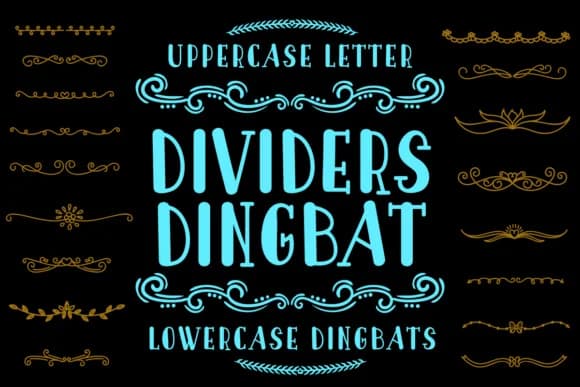
Dividers Dingbat by DogGone Crafting features decorative separators and ornamental marks that create intentional visual breaks across your layouts. Unlike standard typefaces designed around readable text, these character sets function as pure design elements for spacing and framing content. You get two complete sets totaling 52 distinct variations, with uppercase and lowercase options that give you flexibility to adapt across different contexts and projects.
This font works exceptionally well for several design scenarios. Scrapbooking layouts benefit from dividers that separate photo sections and create visual hierarchy between elements. Wedding invitation suites call for ornamental frames, and these marks deliver the elegance needed around text details. Restaurant menus and cafΓ© signage use dividers to frame specials and section categories, adding visual structure without unnecessary clutter. Etsy product labels and boutique packaging for handmade goods also make excellent use of these decorative touches for distinctive branding.
Craft-focused designers and DIY creators will especially appreciate the variety this font brings to their work. You'll find it on Creative Fabrica, with all 52 divider options ready when you need to add visual interest and structure to your next project.
Dividers Dingbat Font is a versatile dingbats font that works for both headings and body text. Pair it with a contrasting sans-serif or serif font to add visual interest and a clear distinction between titles and body copy.